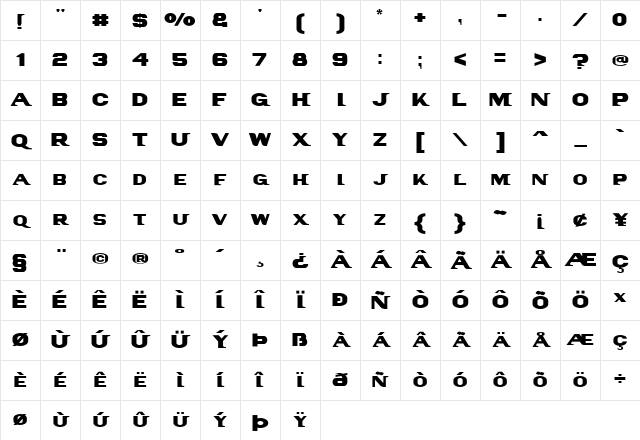
PanAmTextCaps Regular
Design Context for PanAmTextCaps
PanAmTextCaps is a composed and adaptable typeface that performs quietly and consistently across a wide range of design contexts.